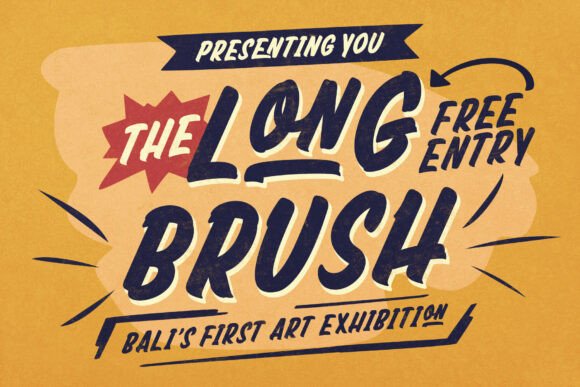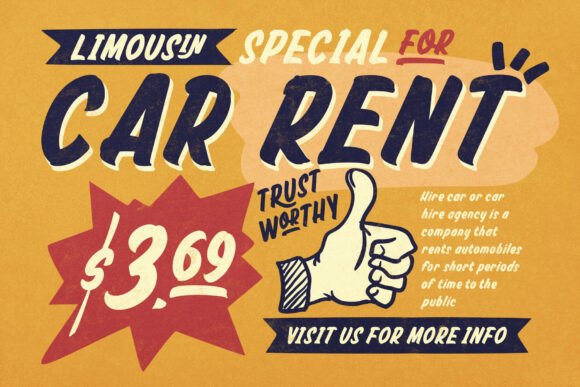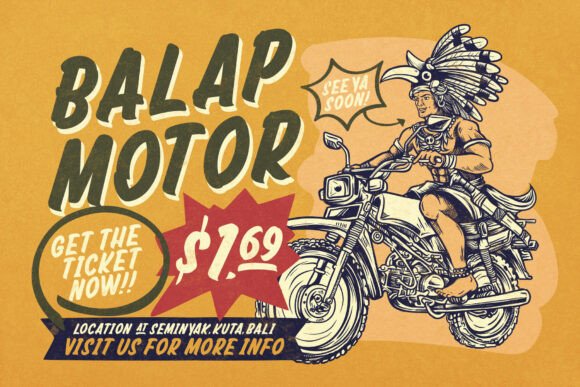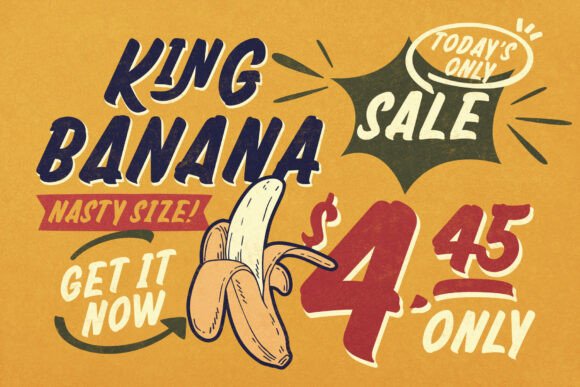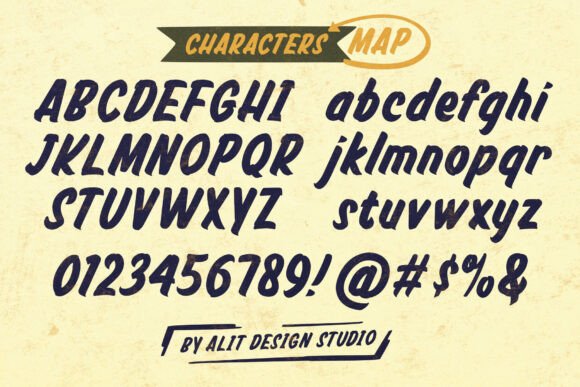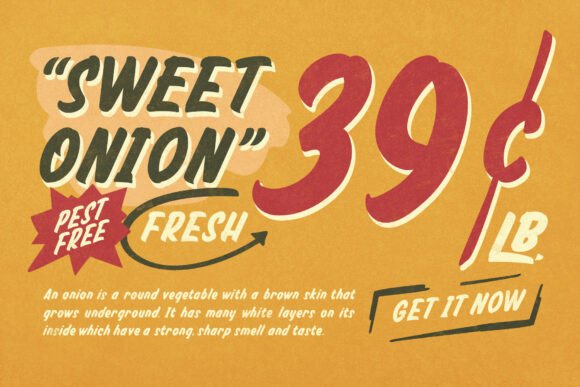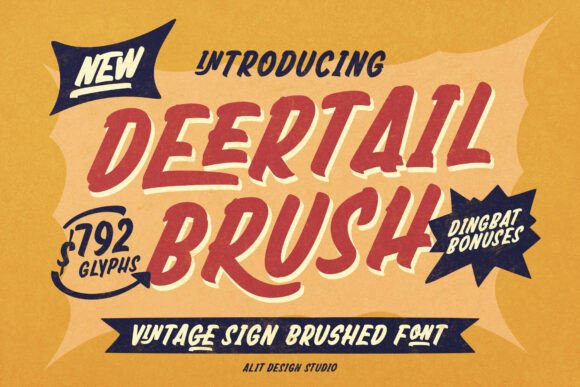
Deertail Brush Typeface: A Retro-Inspired Dynamic Font
Step back into the golden age of hand-painted signs and vintage posters with the Deertail Brush Typeface. This typeface captures the rugged charm of paintbrush strokes and the energetic flow of dynamic handwriting, making it perfect for projects that seek an authentic vintage aesthetic. Whether you’re designing for branding, packaging, posters, or social media, Deertail Brush adds a punchy, nostalgic feel that stands out.
Font Highlights
The Deertail Brush Typeface boasts an impressive array of features that make it a versatile and creative tool for designers. Here are some of the key highlights:
- 792 Character Glyphs: Deertail Brush offers an extensive library of 792 glyphs, ensuring that your designs never feel repetitive. This expansive range includes uppercase and lowercase letters, numbers, punctuation, and special symbols, allowing you to explore creative text arrangements with endless possibilities.
- Rich Alternatives & Ligatures: For those seeking variety, Deertail Brush is packed with alternative characters and ligatures. This feature enables you to create a more organic, hand-like feel in your text, adding a layer of sophistication and elegance to your designs.
Unleash Your Creativity with Deertail Brush
With the Deertail Brush Typeface, you can add a touch of nostalgia and whimsy to your designs. The font’s dynamic, hand-painted feel makes it perfect for a wide range of projects, from:
- Branding: Create eye-catching logos and signage that evoke a sense of vintage charm.
- Packaging: Add a touch of personality to your product labels and packaging with the Deertail Brush font.
- Posters: Design bold, attention-grabbing posters that transport your audience back in time.
- Social Media: Stand out on social media with Deertail Brush’s unique, hand-painted aesthetic.
Why Choose Deertail Brush?
With so many fonts available, why choose Deertail Brush? Here are just a few reasons why this typeface stands out:
- Unique Aesthetic: Deertail Brush offers a distinctive, retro-inspired look that sets it apart from more traditional fonts.
- Versatility: With 792 glyphs and a range of alternative characters and ligatures, Deertail Brush is incredibly versatile and adaptable.
- Ease of Use: The font is easy to use and pairs perfectly with a wide range of design software.
Tips for Using Deertail Brush
To get the most out of the Deertail Brush Typeface, here are a few tips:
- Experiment with Different Sizes: Deertail Brush looks great in a range of sizes, from small and delicate to large and bold.
- Play with Color: The font’s hand-painted feel lends itself perfectly to bold, vibrant colors.
- Mix and Match: Don’t be afraid to combine Deertail Brush with other fonts and design elements to create a unique look.
The Deertail Brush Typeface is a powerful tool for designers and crafters looking to add a touch of vintage charm to their projects. With its extensive library of glyphs, rich alternatives and ligatures, and dynamic hand-painted feel, this font is perfect for a wide range of applications. Whether you’re designing for branding, packaging, posters, or social media, Deertail Brush is sure to make your designs stand out.